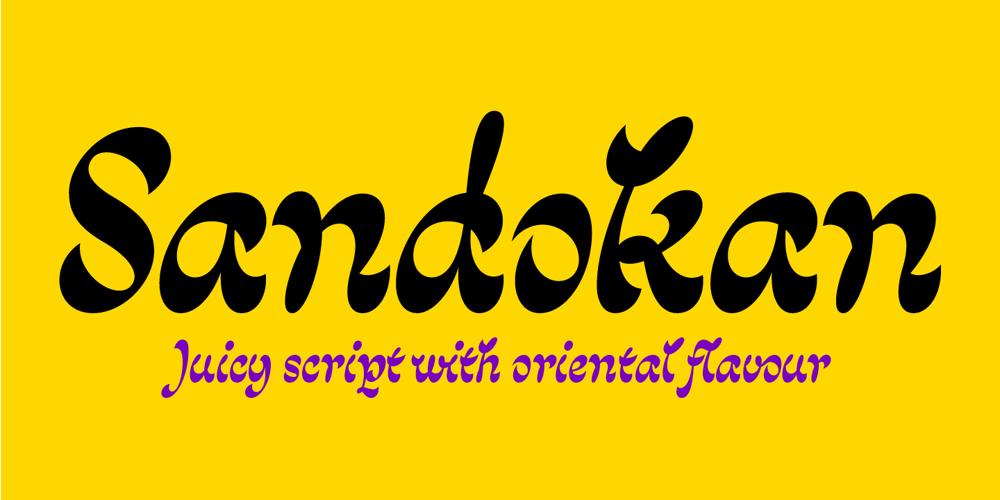
Sandokan Font Family was designed by Machat Matyáš and published by Matyas Machat. Sandokan contains 1 styles and family package options. Sandokan is a brush script font with a character and morphology that nears Oriental calligraphy, Art Nouveau typefaces, psychedelic “flower power” fonts from the Sixties and Tuscan poster fonts from the 19th century. Its main features are the high contrast between thick and thin strokes and the extreme slanted angle in the typewriter imprints, creating inverse shadowing. The letter set is further accentuated by exotic decorative details and the often unusual connectors between small letters. The typeface supports all languages using the universal Latin character set. Sandokan is a slightly sweetened cultural cocktail. As such it looks best on everything that needs to come across as exotic and rather solid but unmistakeably eccentric – such as labels and packaging on exotic delicacies or circus posters.